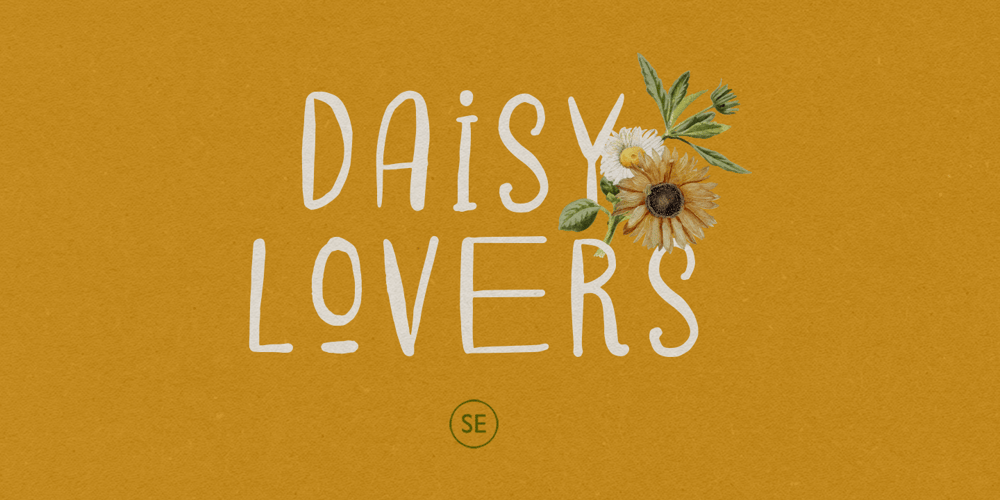
Daisy Lovers Font Family was designed by Sarid Ezra and published by Sarid Ezra. Daisy Lovers contains 1 styles and family package options. Introducing, Daisy Lovers, a tall handwritten sans!Daisy Lovers is a sans font with handwritten touch. This font will make your project or your design more human. You can use this font for your brands, quotes, book covers, etc. With unique lowercase, Daisy Lovers can make your project more stand out! This font also support multi language.Happy Creating!